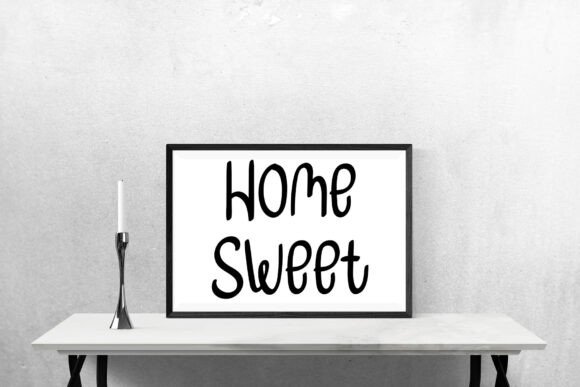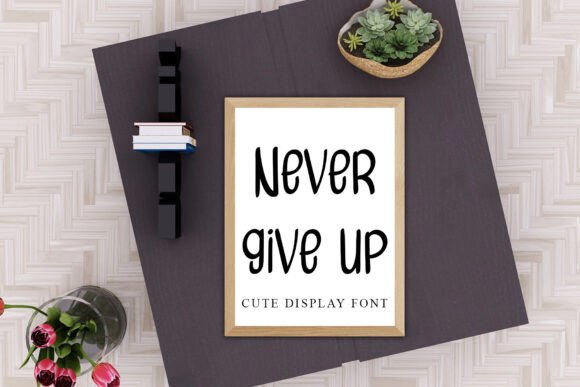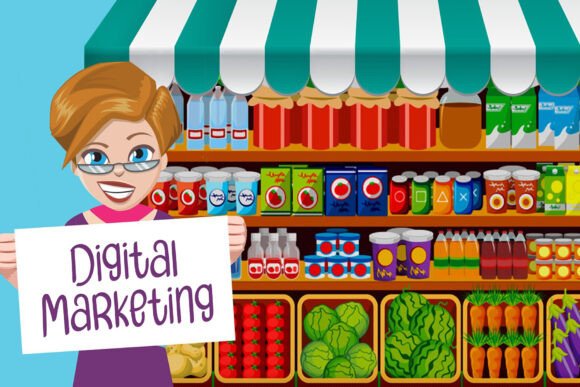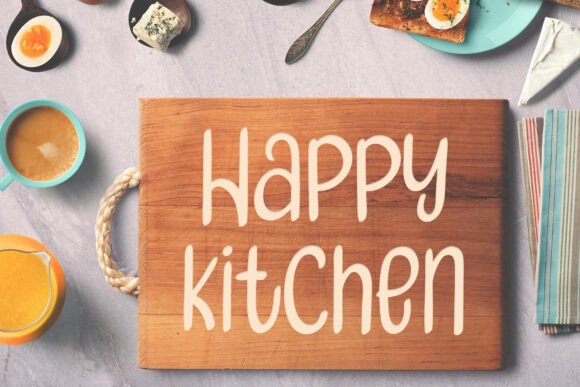
Introducing California Font: The Timeless Handwritten Font for Stunning Designs
Are you a designer or crafter looking for a font that can add a touch of elegance and sophistication to your work? Look no further than California Font, a lovely and timeless handwritten font that is perfect for creating eye-catching logos, branding, and quotes.
What Makes California Font Special?
California Font is a unique and beautiful font that stands out from the rest. Every letter has a distinctive and elegant touch that will make your design come alive. The font’s handwritten style gives it a personal and approachable feel, making it perfect for a wide range of design projects.
When it comes to creating logos and branding, the font you choose can make all the difference. California Font is an excellent choice for several reasons. Firstly, its unique and beautiful lettering will help your brand stand out from the competition. Secondly, the font’s elegant and sophisticated style will give your brand a professional and high-end feel. Whether you’re creating a logo for a new business or rebranding an existing one, California Font is an excellent choice.
Great for Quotes and Typography
California Font is not just limited to logos and branding. It’s also perfect for creating stunning quotes and typography. The font’s handwritten style adds a personal touch to any quote, making it perfect for social media posts, posters, and other visual content. Whether you’re creating a motivational quote or a simple phrase, California Font will add a touch of elegance and sophistication to your design.
Why Designers and Crafters Love California Font
So, why do designers and crafters love California Font? Here are just a few reasons:
- Unique and Beautiful Lettering: Every letter in California Font has a unique and beautiful touch that will make your design stand out.
- Elegant and Sophisticated Style: The font’s elegant and sophisticated style makes it perfect for creating professional and high-end designs.
- Handwritten Style: The font’s handwritten style adds a personal and approachable feel to any design.
- Versatile: California Font is perfect for a wide range of design projects, from logos and branding to quotes and typography.
How to Use California Font
Using California Font is easy. Here are a few tips to get you started:
- Pair it with Other Fonts: California Font pairs well with other fonts, so feel free to experiment with different combinations.
- Experiment with Colors: The font looks great in a variety of colors, so don’t be afraid to try out different color schemes.
- Use it for Headlines and Titles: California Font is perfect for headlines and titles, so use it to add a touch of elegance and sophistication to your design.
In conclusion, California Font is a timeless handwritten font that is perfect for creating eye-catching logos, branding, and quotes. Its unique and beautiful lettering, elegant and sophisticated style, and handwritten style make it a great choice for designers and crafters. Whether you’re creating a logo, branding, or simply a quote, California Font is an excellent choice. So why not give it a try and see how it can elevate your designs?